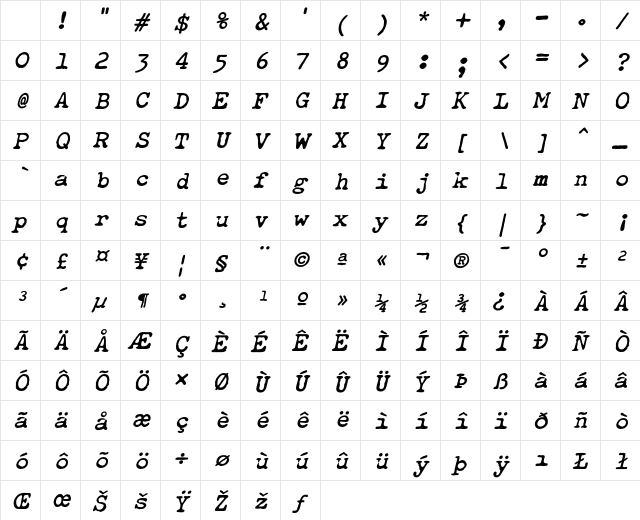
Complete Obsolete BoldOblique glyph index. Displaying only characters natively supported by Obsolete BoldOblique font.
Obsolete is a composed and adaptable typeface that performs quietly and consistently across a wide range of design contexts. The slanted form adds forward momentum and visual energy. Its bold stroke weight gives it real presence on the page.